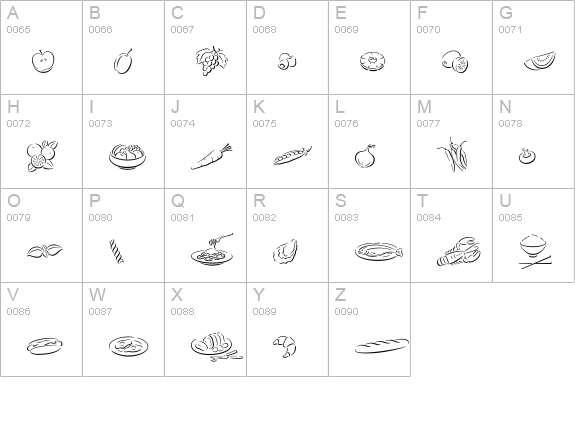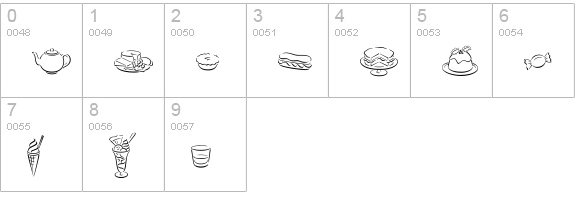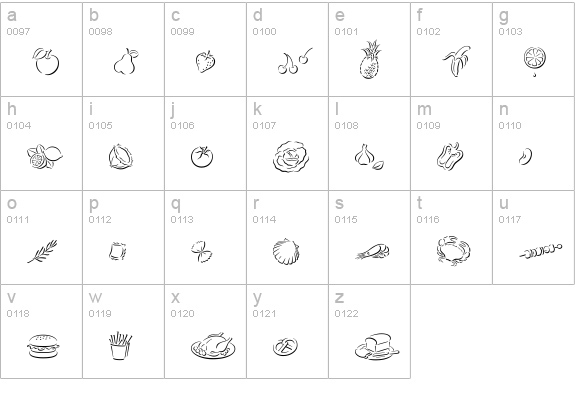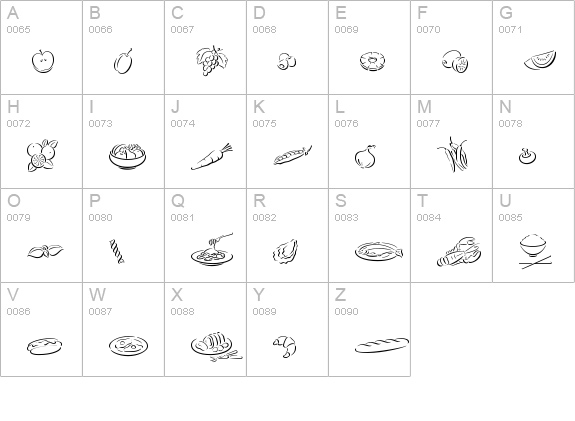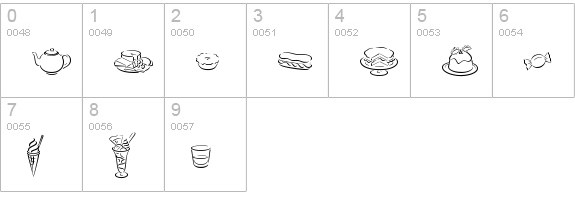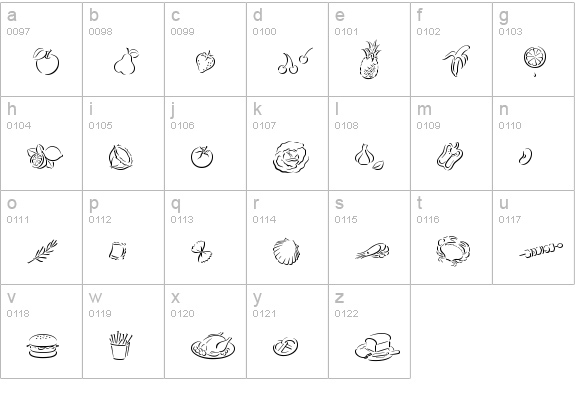
DF Delectables Font Details
DF Delectables font is a delightful and charming typeface that exudes a sense of elegance and sophistication. With its graceful curves and stylish flourishes, this font is perfect for adding a touch of beauty to any project. Whether you are designing invitations, logos, or packaging, DF Delectables font will elevate your design to a whole new level. What sets DF Delectables font apart is not just its stunning appearance, but also the fact that it is completely free to download. Yes, you read that right - this gorgeous font is freely available to download at FontsMarket.com. So go ahead and add a touch of luxury to your designs with DF Delectables font today!